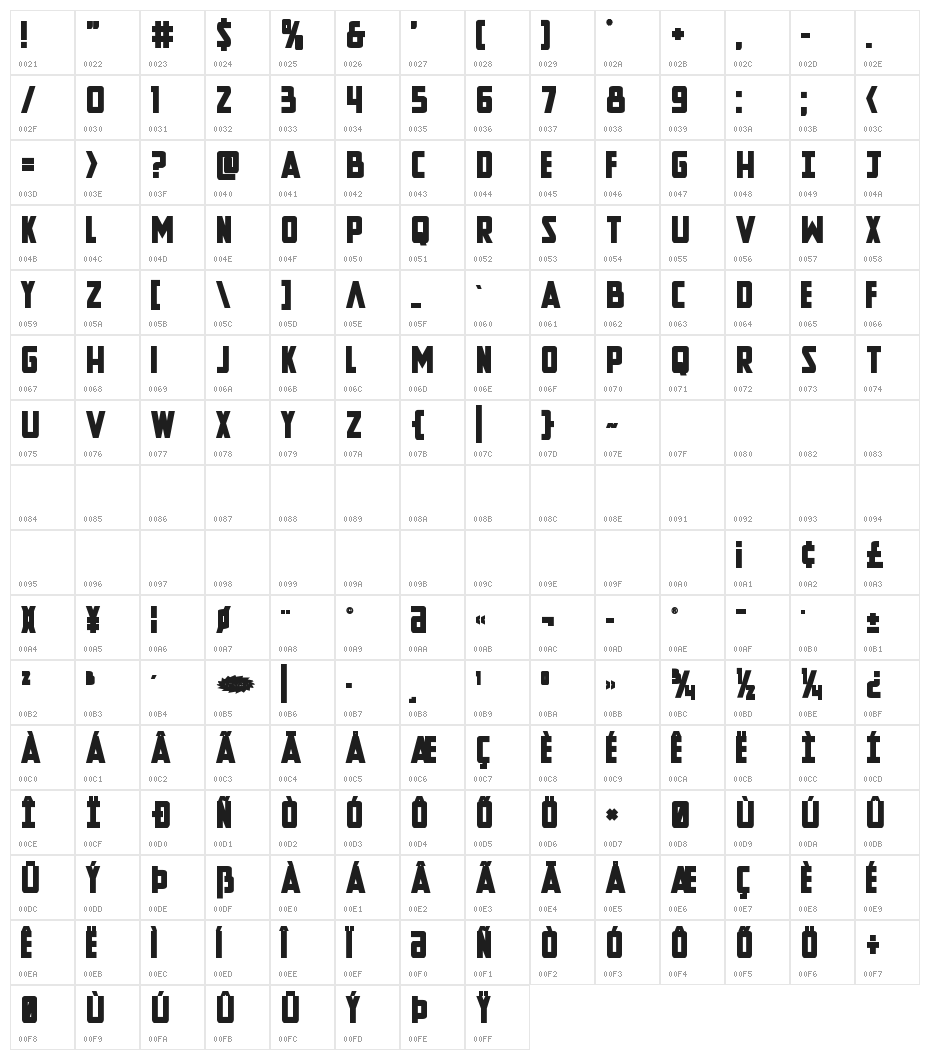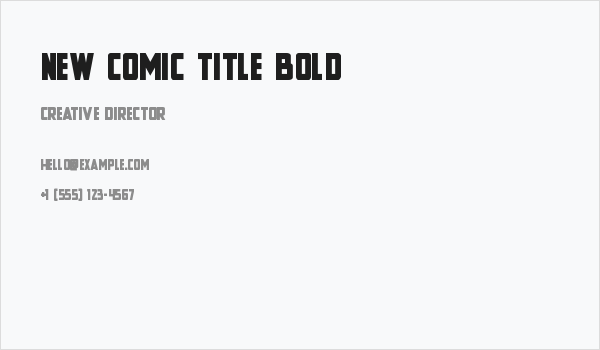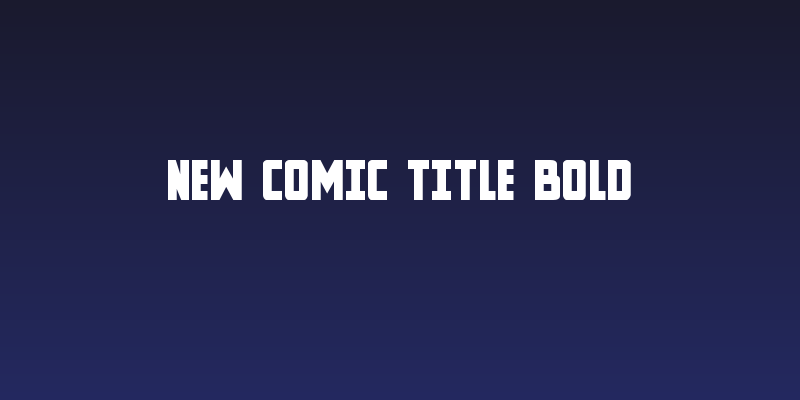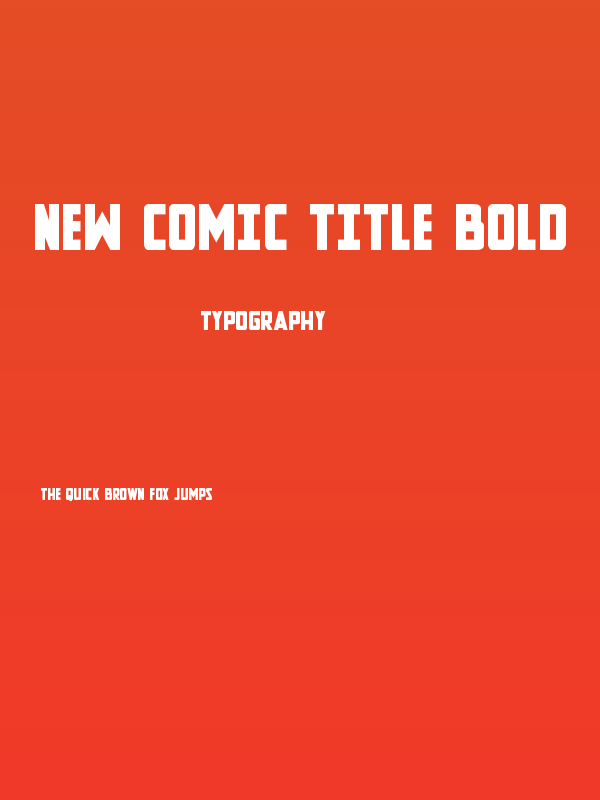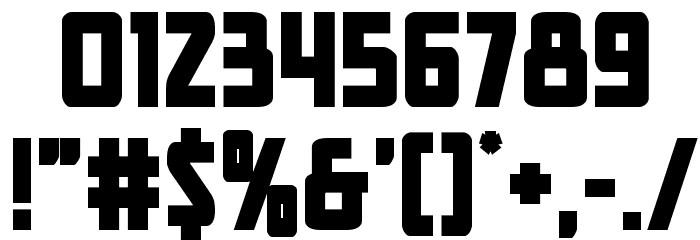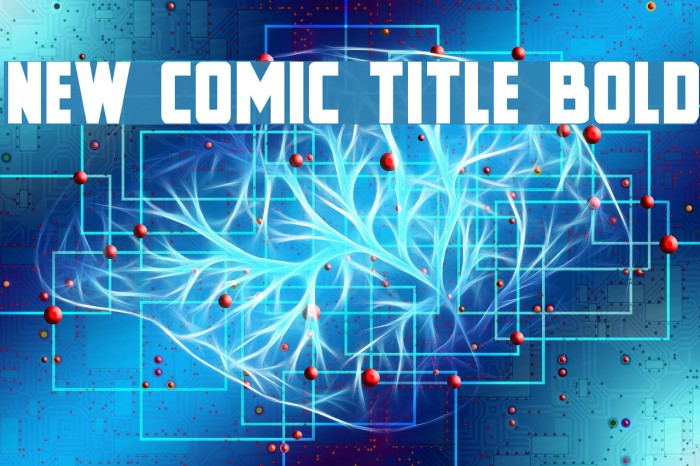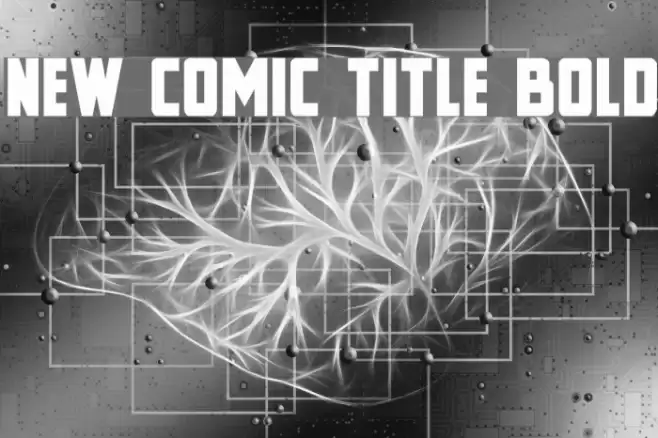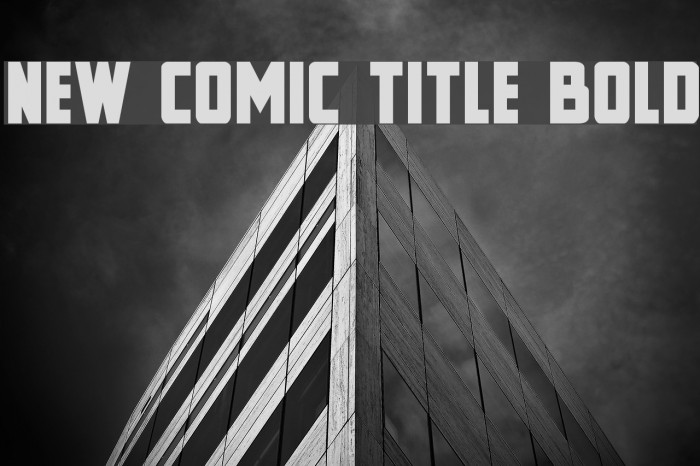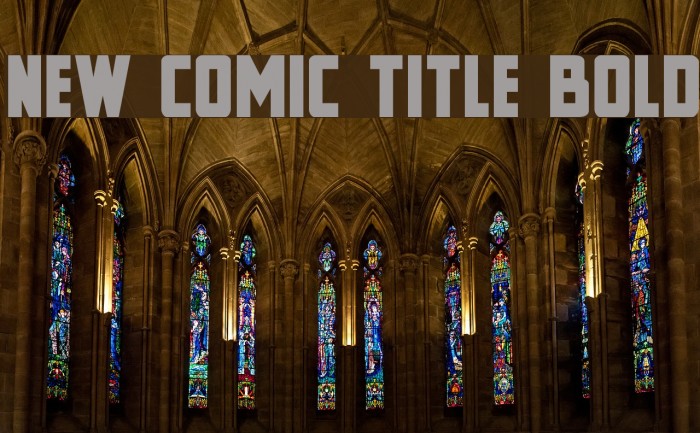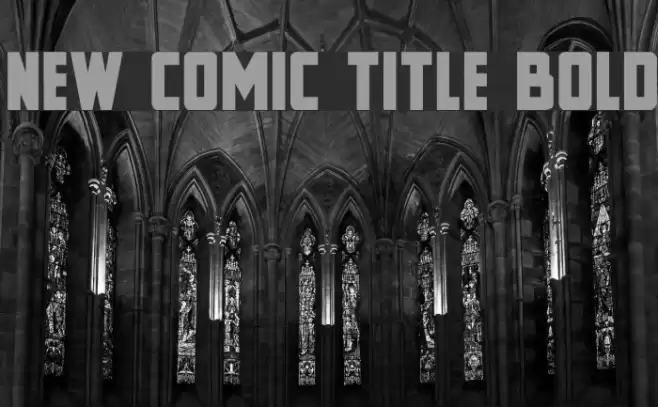
New Comic Title Bold Font
This bold and impactful font features a strong, geometric design with thick strokes and sharp angles. The uppercase letters are uniform in height, creating a cohesive and structured appearance. The lowercase letters maintain the boldness, offering a consistent visual weight throughout. Numbers are equally robust, ensuring clarity and emphasis. Special characters are designed to match the overall bold aesthetic, making them stand out effectively. This font's strong presence makes it ideal for attention-grabbing designs.
| Proposed Projects | Ideal for comic book titles, posters, headlines, and any project requiring a bold, impactful typeface. |